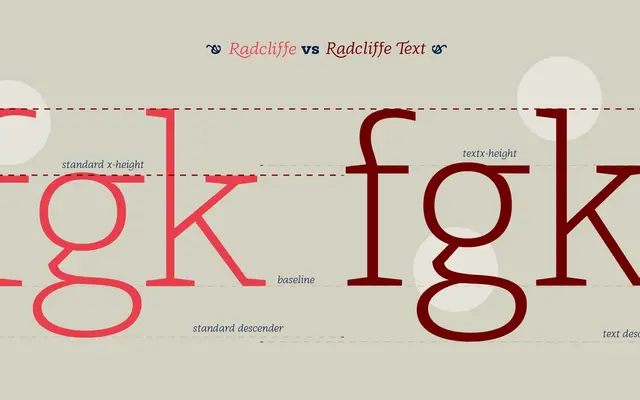
Radcliffe
Zetafonts · Cosimo Lorenzo Pancini, Francesco Canovaro, Andrea Tartarelli · 2018
A 26-style Clarendon revival with a humanist inflection, covering display, text and a quirky reverse-contrast Casual subfamily.
Designed by Cosimo Lorenzo Pancini and Andrea Tartarelli in 2018, Radcliffe reworks the Clarendon model with bracketed serifs, vertical stress and low contrast, softened by calligraphic details most visible in the italics. Radcliffe Text offers a taller x-height and slightly condensed proportions for body copy, while the two-weight Radcliffe Casual introduces a reverse-contrast aesthetic for more playful applications. All cuts include comprehensive OpenType features and coverage for over 200 languages across Latin and Cyrillic scripts.
Radcliffe is explicitly described as a reinvention of traditional Clarendon design, featuring strong bracketed serifs, vertical stress and low contrast characteristic of the Clarendon subcategory.